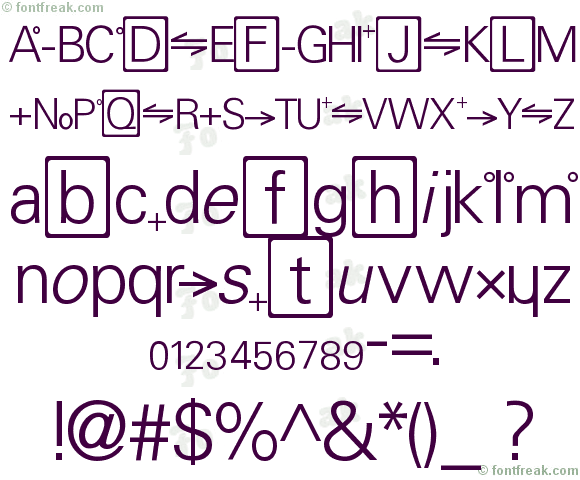
Chemistry
The Chemistry font by Levi is a striking display typeface that embodies a modern yet playful aesthetic. As a decorative font, it features unique characteristics that make it ideal for eye-catching designs. The font showcases a mix of bold and thin strokes, providing a dynamic contrast that draws attention. Its slightly rounded edges and geometric forms create a friendly and inviting appearance, while the spacing between letters is well-balanced, ensuring readability even at larger sizes. This font includes playful decorative elements, such as stylized letters that evoke a sense of creativity and innovation, which is fitting for its namesake.
Best suited for creative applications, the Chemistry font excels in various use cases. It can be effectively utilized for educational materials, especially in chemistry-related projects, as well as for vibrant posters that aim to capture an audience's interest. Additionally, it works wonderfully for branding in science-themed cafes or businesses, and can add a unique touch to product packaging that targets younger demographics. Graphic designers and content creators will find this font particularly appealing for creating standout social media graphics or promotional materials that require a modern flair.
What truly sets the Chemistry font apart is its ability to blend fun and professionalism, making it versatile for various design needs. With its captivating visual elements and approachable style, it’s no wonder that many are searching for a Chemistry font free download to enhance their creative projects.